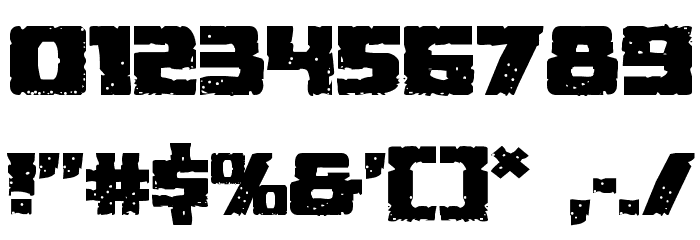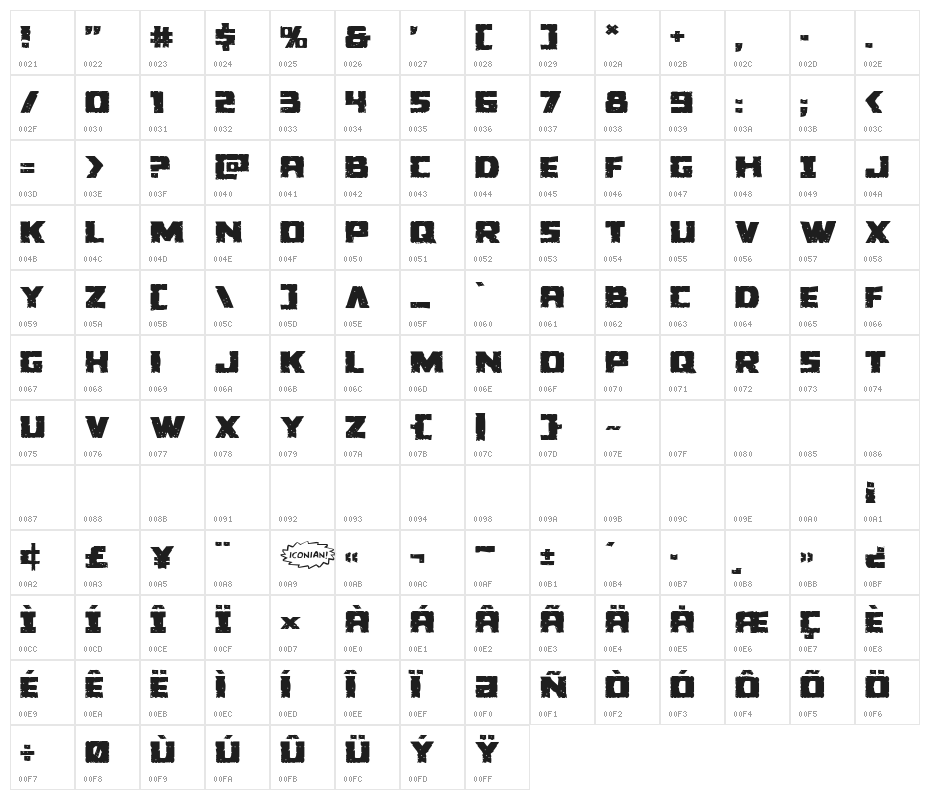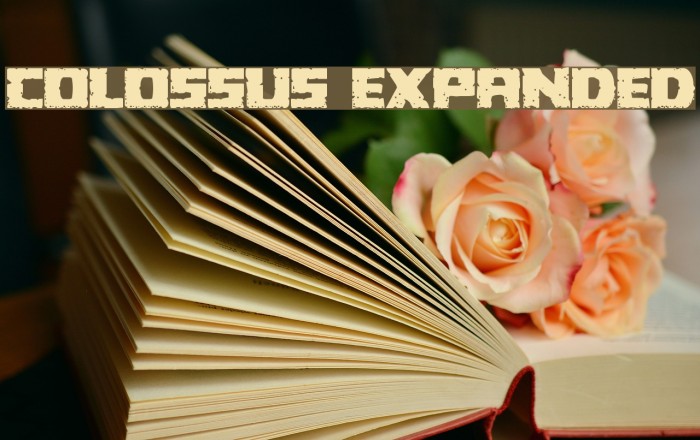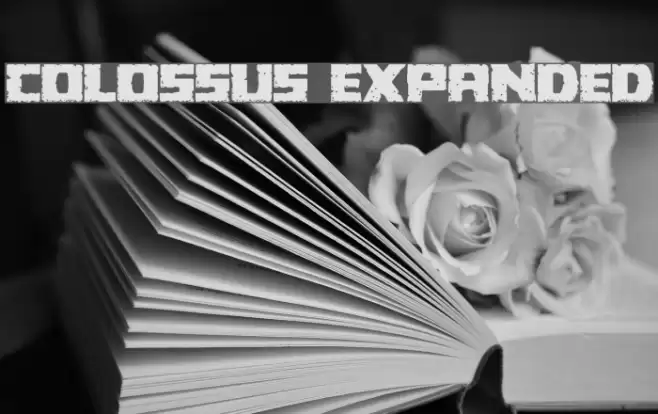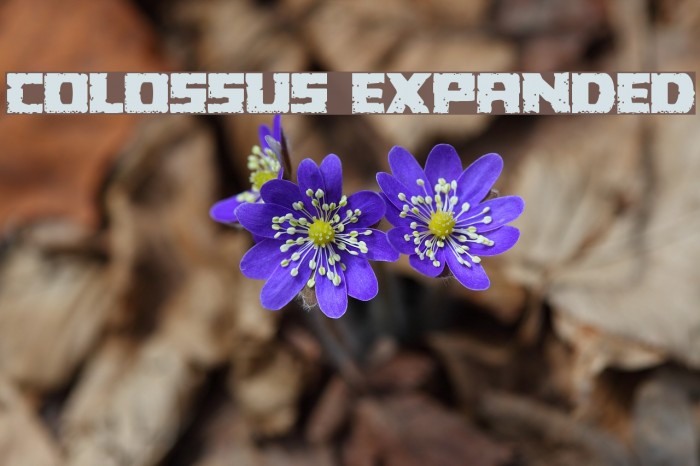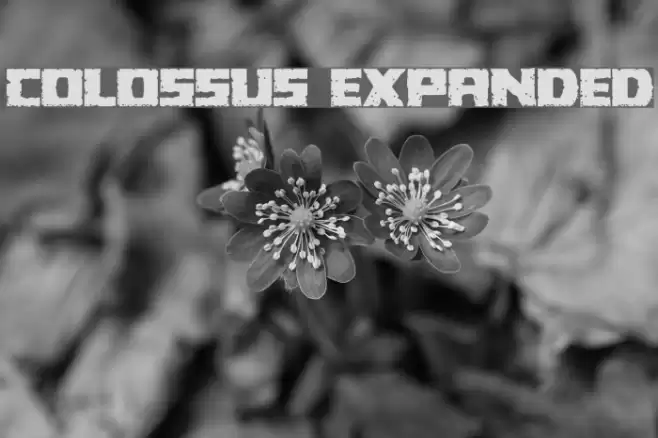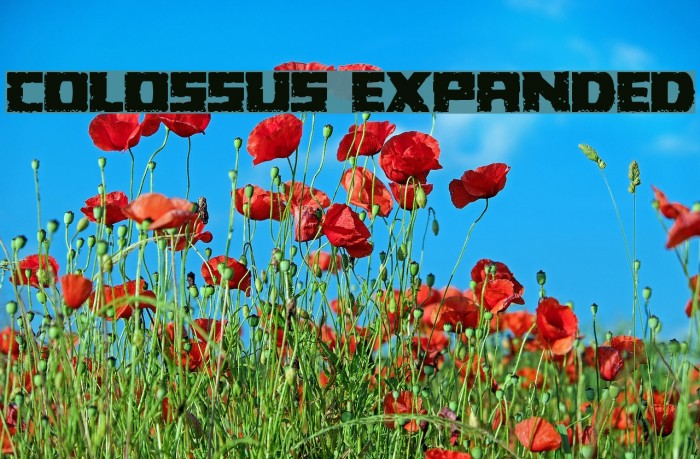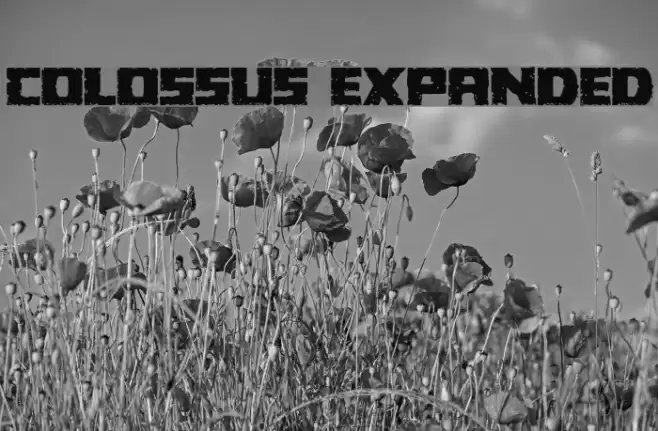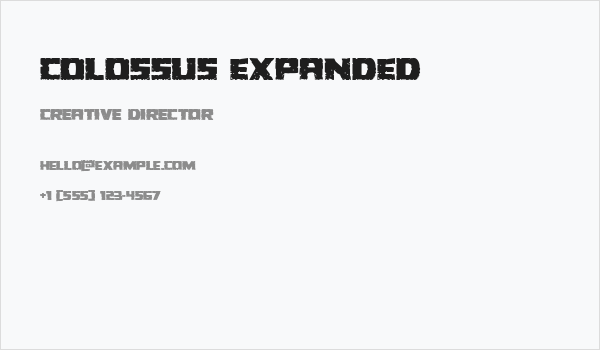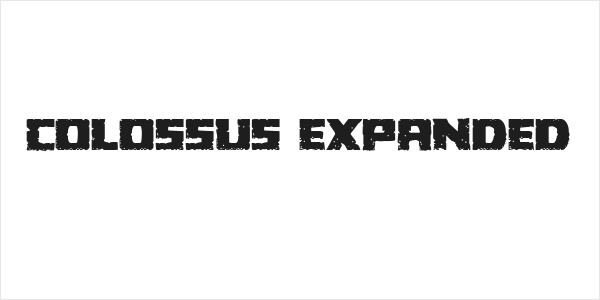
Colossus Expanded Font
Colossus Expanded Description
This font features a bold and rugged design with a distressed texture that gives it a worn, vintage appearance. The characters are blocky and robust, with a strong presence that commands attention. The uppercase and lowercase letters maintain a consistent style, emphasizing the font's boldness. The numbers and special characters follow the same design principles, ensuring uniformity across all glyphs. The expanded width of the characters adds to its imposing look, making it ideal for impactful designs.
| Proposed Projects | Ideal for posters, album covers, branding projects, and any design requiring a strong, vintage aesthetic. |